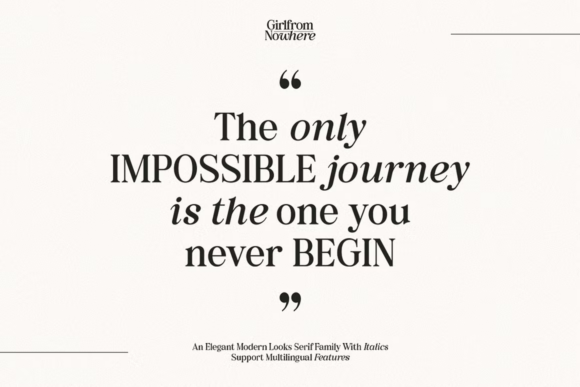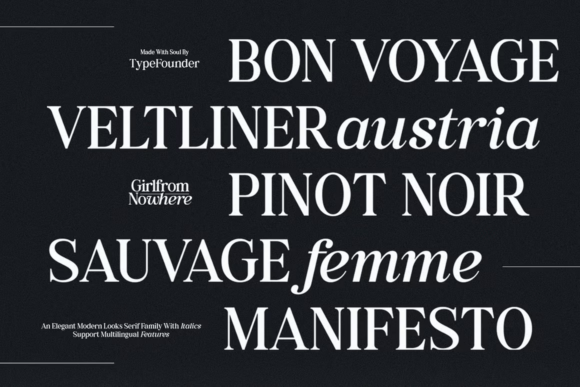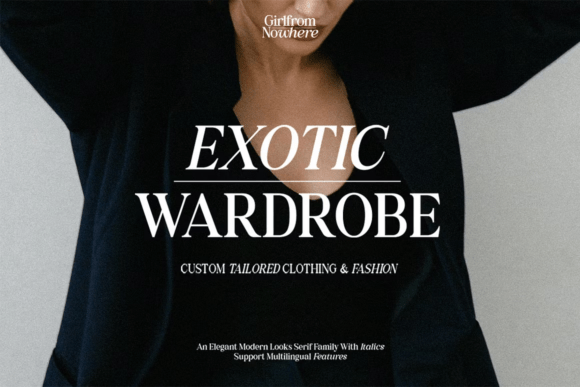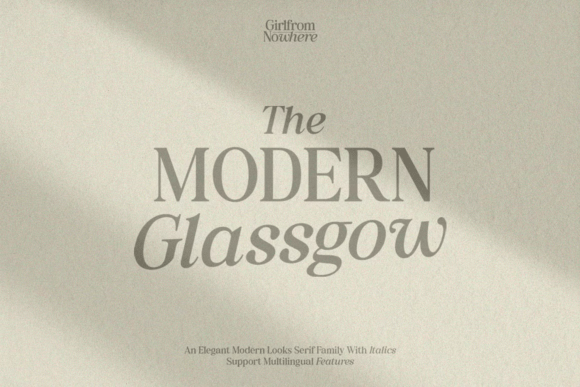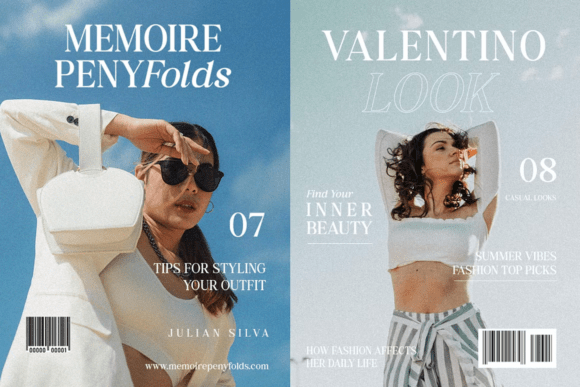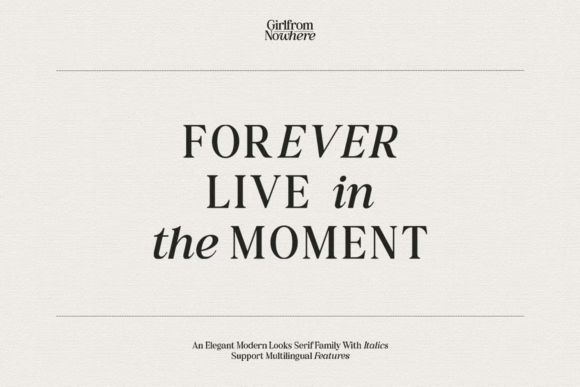
Discover the Elegance of Girlfrom Nowhere Font
In the realm of typography, few fonts manage to strike a balance between sophistication, character, and modern elegance. Girlfrom Nowhere Font is one such exceptional typeface that has been meticulously crafted to meet the demands of discerning designers. With its refined ligatures, distinctive alternates, and versatile italic companion, Girlfrom Nowhere is poised to elevate editorial layouts, luxury branding, fashion identities, packaging, and a myriad of creative projects that require a bold yet graceful typographic voice.
The Essence of Girlfrom Nowhere Font
Girlfrom Nowhere is an editorial serif typeface that exudes an air of sophistication and modernity. Its design is characterized by meticulous attention to detail, featuring refined ligatures and distinctive alternates that set it apart from more conventional typefaces. This font is not just about aesthetics; it’s about delivering a striking visual presence that can seamlessly adapt across various platforms, from large-scale displays to detailed typographic settings.
Key Features of Girlfrom Nowhere Font
- Refined Ligatures and Alternates: The inclusion of refined ligatures and distinctive alternates allows for a high degree of customization and creativity. These features enable designers to add a unique touch to their projects, making the text more engaging and visually appealing.
- Italic Companion: The italic version of Girlfrom Nowhere adds a layer of expressive contrast, enhancing the font’s versatility. This makes it an excellent choice for projects that require a range of typographic expressions, from subtle elegance to bold statements.
- Sophistication and Elegance: At its core, Girlfrom Nowhere is designed to bring a sense of sophistication and modern elegance to any project. Its serif structure is classic, yet its execution is distinctly contemporary, making it suitable for luxury branding, high-end fashion identities, and editorial content.
Applications of Girlfrom Nowhere Font
The versatility of Girlfrom Nowhere Font makes it an ideal choice for a wide range of applications. Here are some of the areas where this font truly shines:
- Editorial Layouts: For magazines, journals, and any form of editorial content, Girlfrom Nowhere offers the perfect blend of readability and style. Its elegant design ensures that the content stands out, making it more engaging for readers.
- Luxury Branding: Brands that aim to convey a sense of luxury, sophistication, and elegance will find Girlfrom Nowhere to be an invaluable asset. Its unique character can help in creating a strong brand identity that resonates with the target audience.
- Fashion Identities: In the fast-paced world of fashion, having a distinctive typographic voice is crucial. Girlfrom Nowhere, with its modern yet elegant design, is perfectly suited for fashion brands looking to make a statement.
- Packaging: For high-end products, packaging plays a critical role in brand perception. Girlfrom Nowhere can elevate product packaging, making it more luxurious and appealing to potential customers.
Why Choose Girlfrom Nowhere Font?
In a market flooded with typefaces, Girlfrom Nowhere stands out for several reasons:
- Unique Design: Its refined ligatures, distinctive alternates, and elegant serif structure offer a fresh perspective in typography.
- Versatility: With its italic companion, Girlfrom Nowhere provides a range of typographic expressions, making it suitable for diverse creative projects.
- High-End Aesthetic: The font’s sophistication and modern elegance make it an excellent choice for projects that demand a high-end aesthetic.
In conclusion, Girlfrom Nowhere Font is a remarkable addition to the world of typography. Its elegant design, versatile features, and high-end aesthetic make it an indispensable tool for designers and crafters aiming to create visually stunning and impactful projects. Whether it’s for editorial layouts, luxury branding, fashion identities, or packaging, Girlfrom Nowhere is poised to leave a lasting impression.